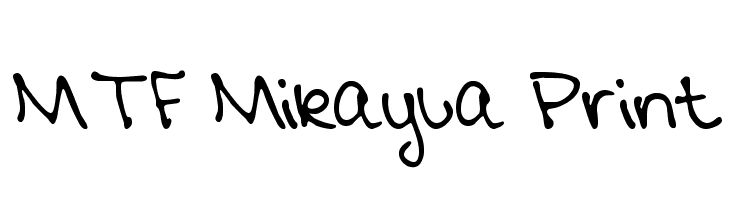
A playful handwritten font with a casual and friendly style.
A playful, whimsical handwritten font with tall, narrow letters and irregular strokes.
A casual, friendly handwritten font with smooth, flowing strokes.
A playful, bold font with irregular, hand-drawn letterforms.
A playful, bold font with a whimsical and dynamic style.
A playful, casual handwritten font with fluid, irregular strokes.
A playful, rounded font with smooth curves and a friendly aesthetic.
A playful, handwritten font with an informal and whimsical style.